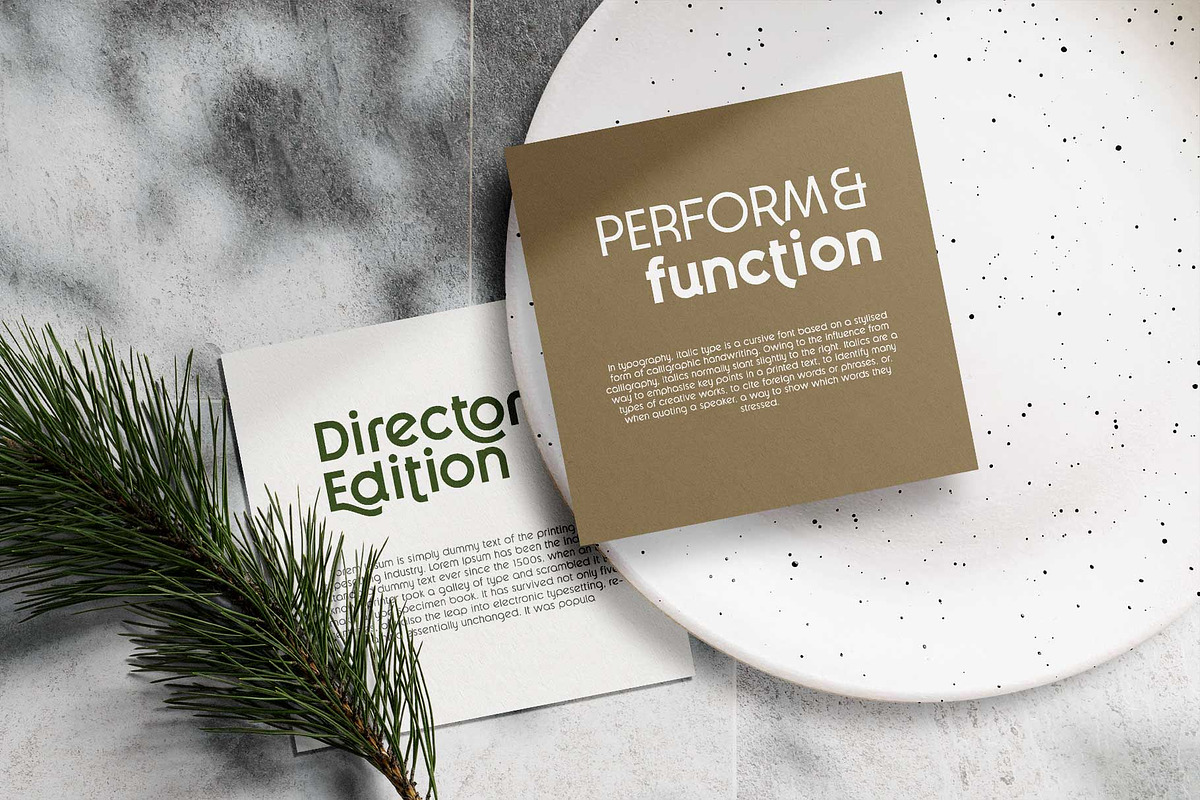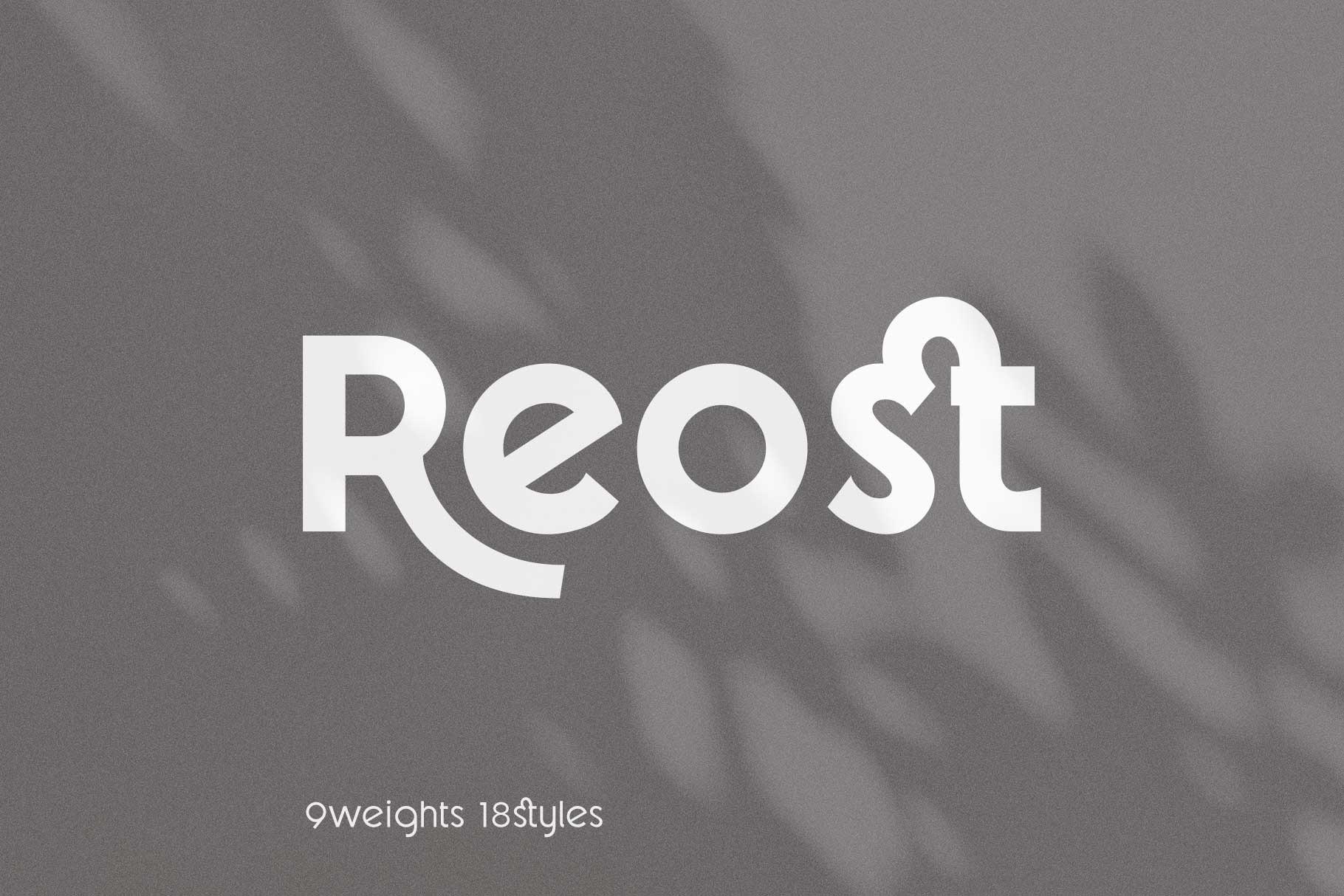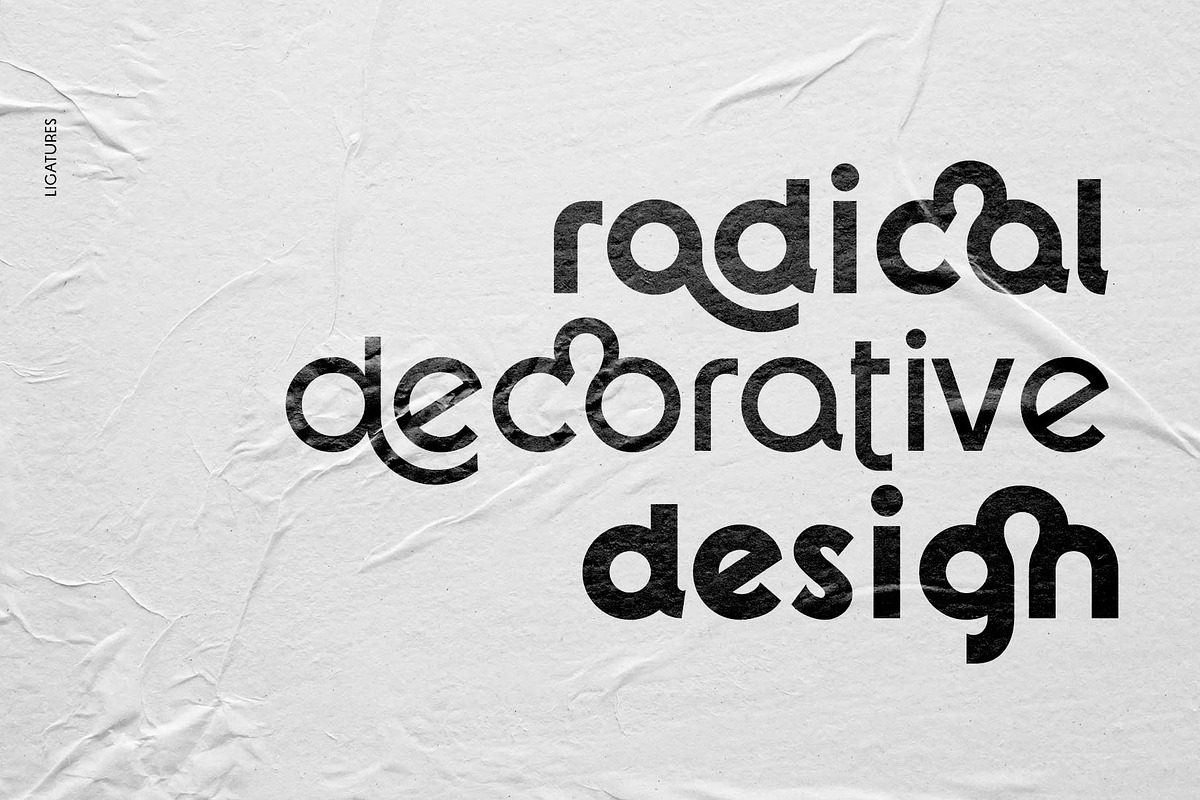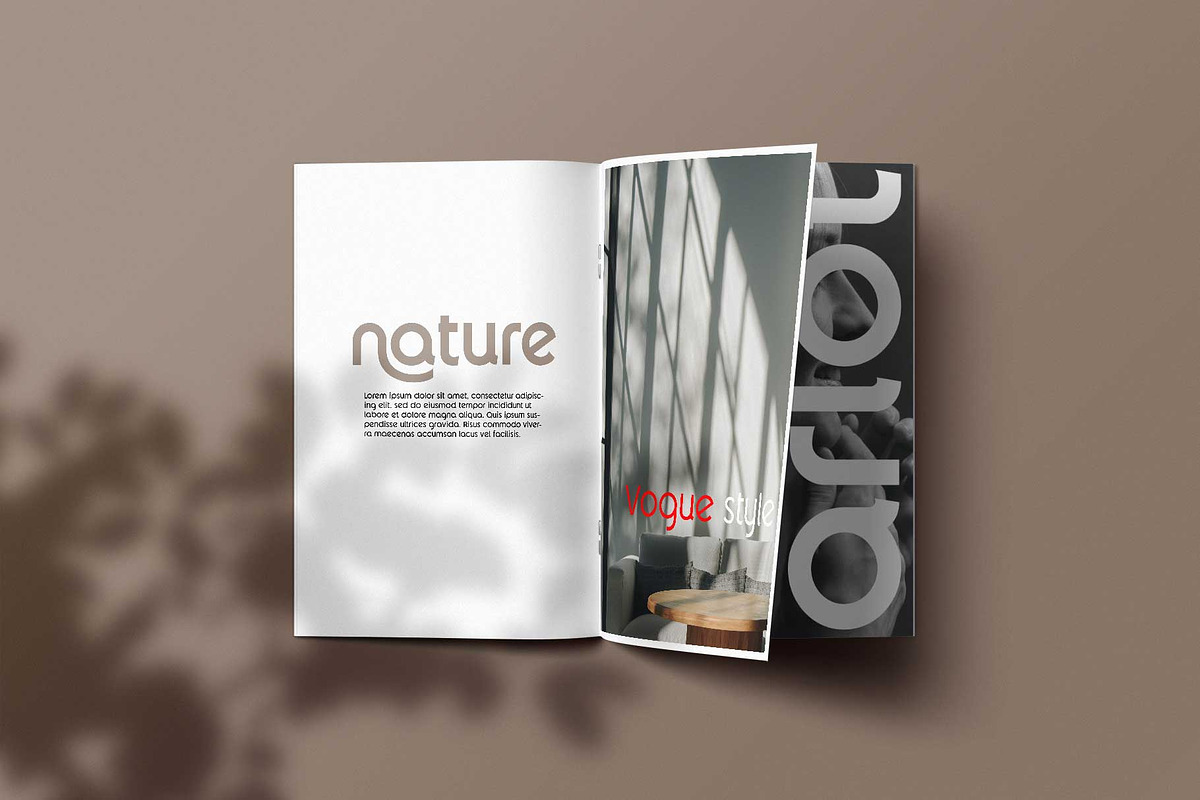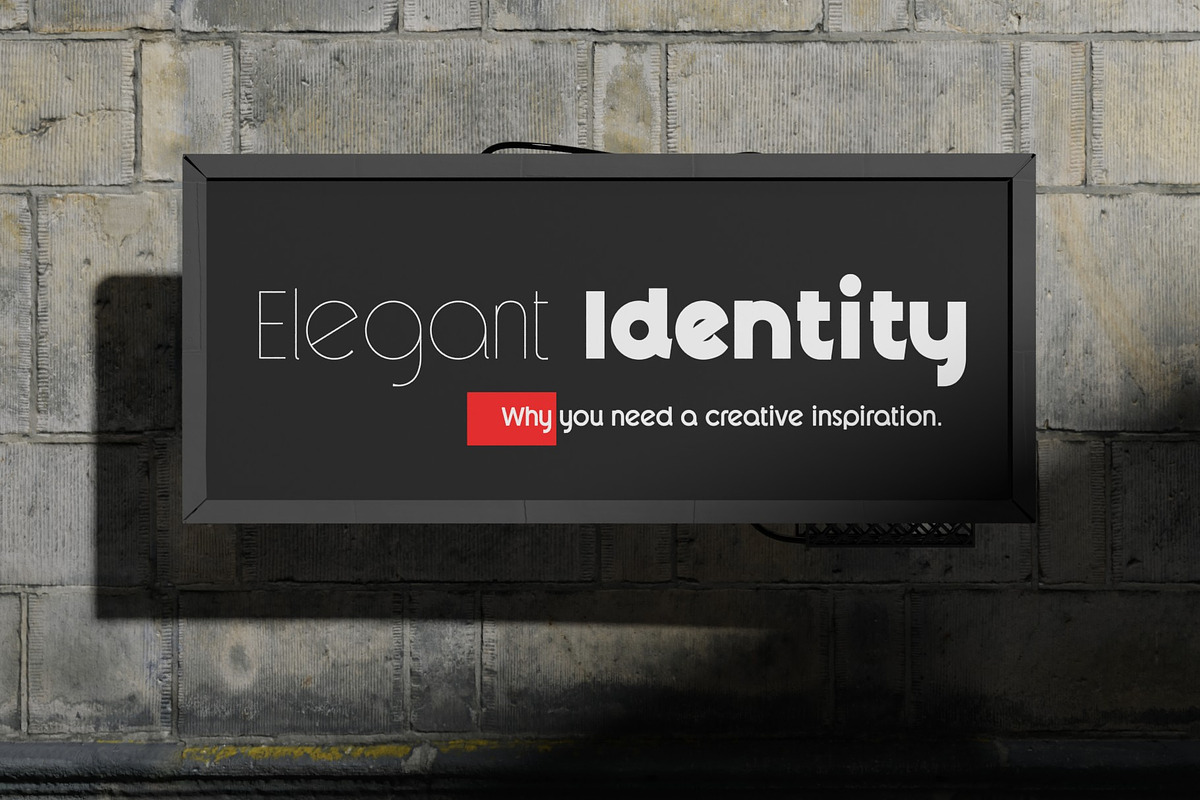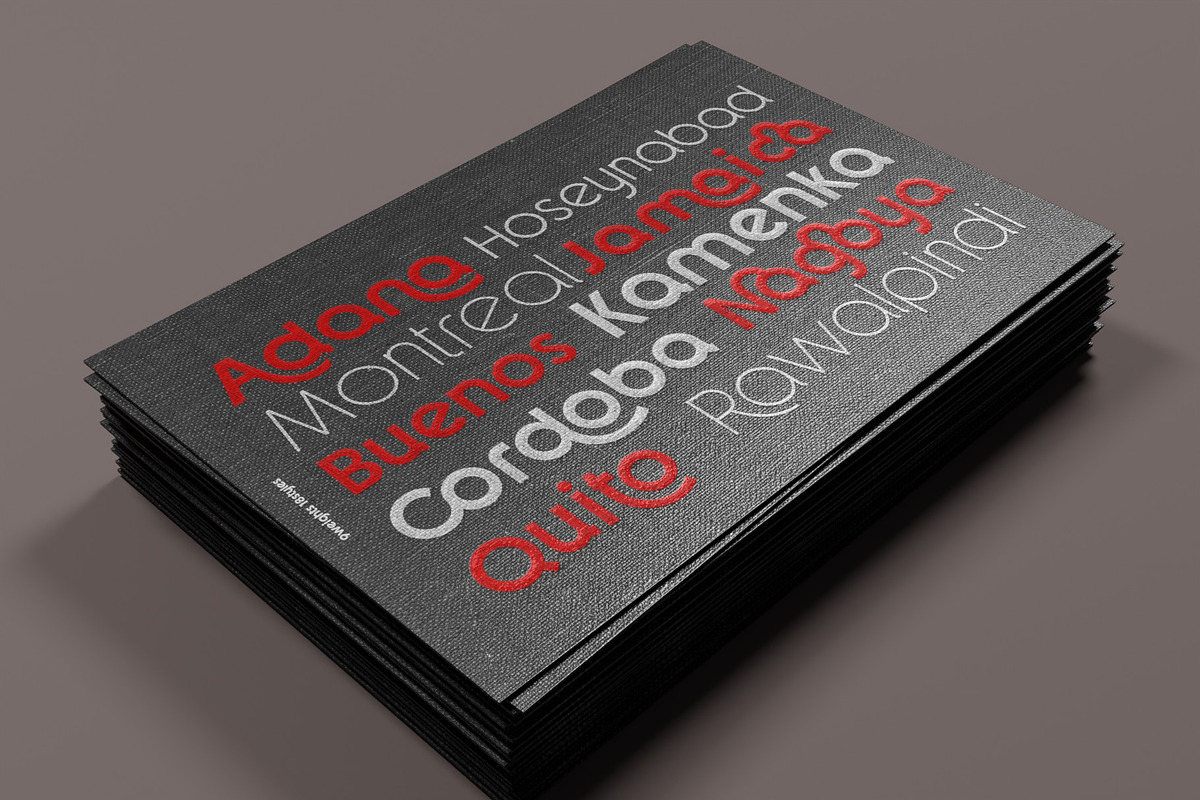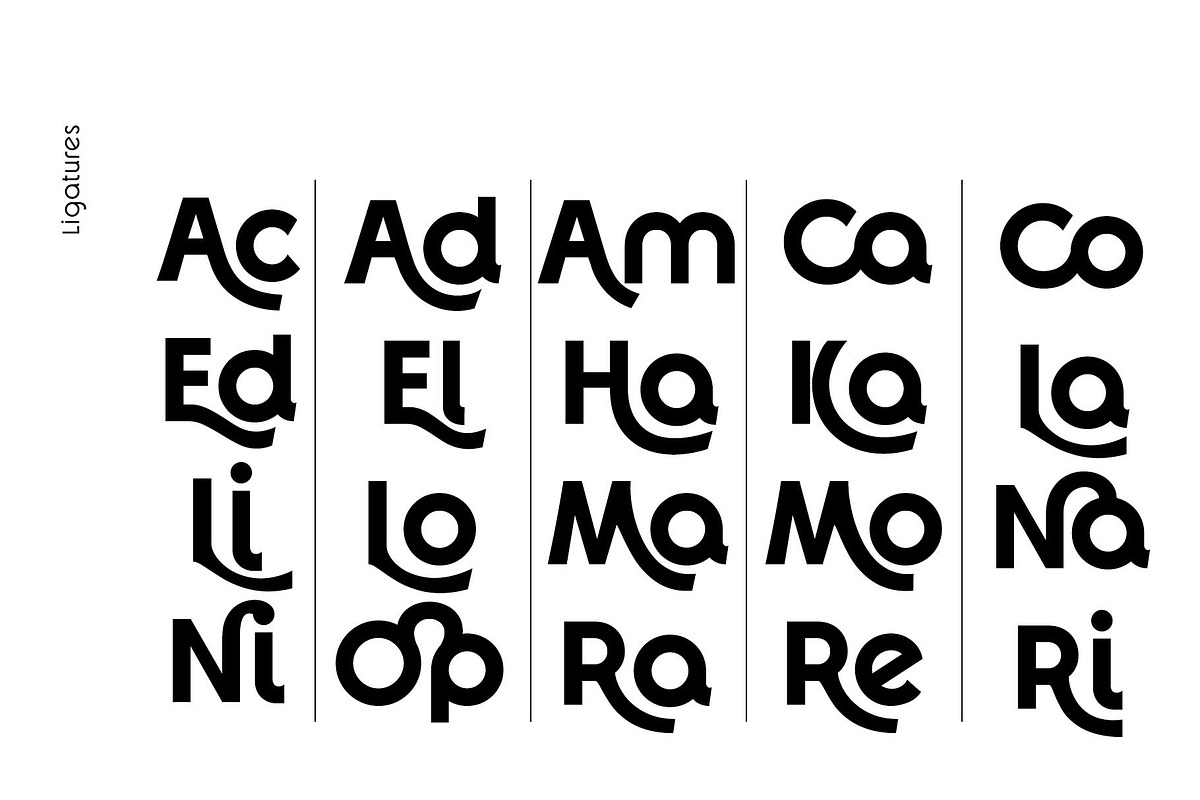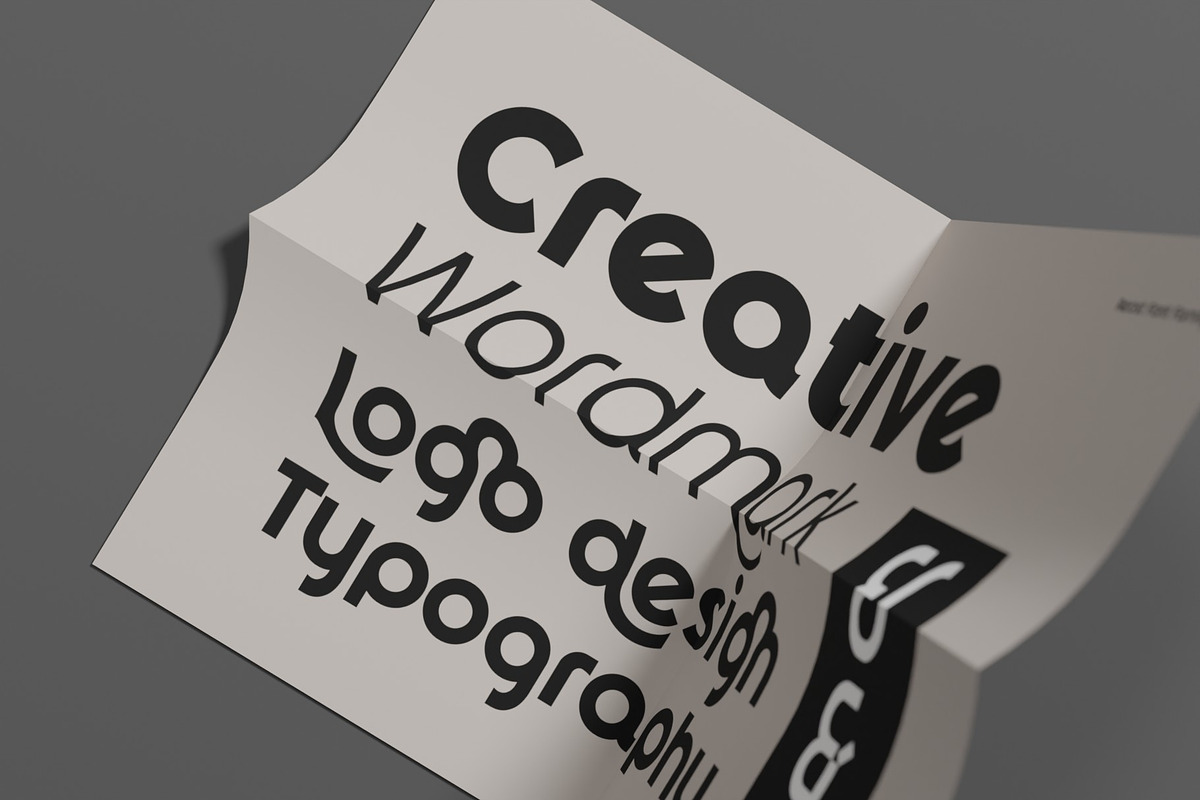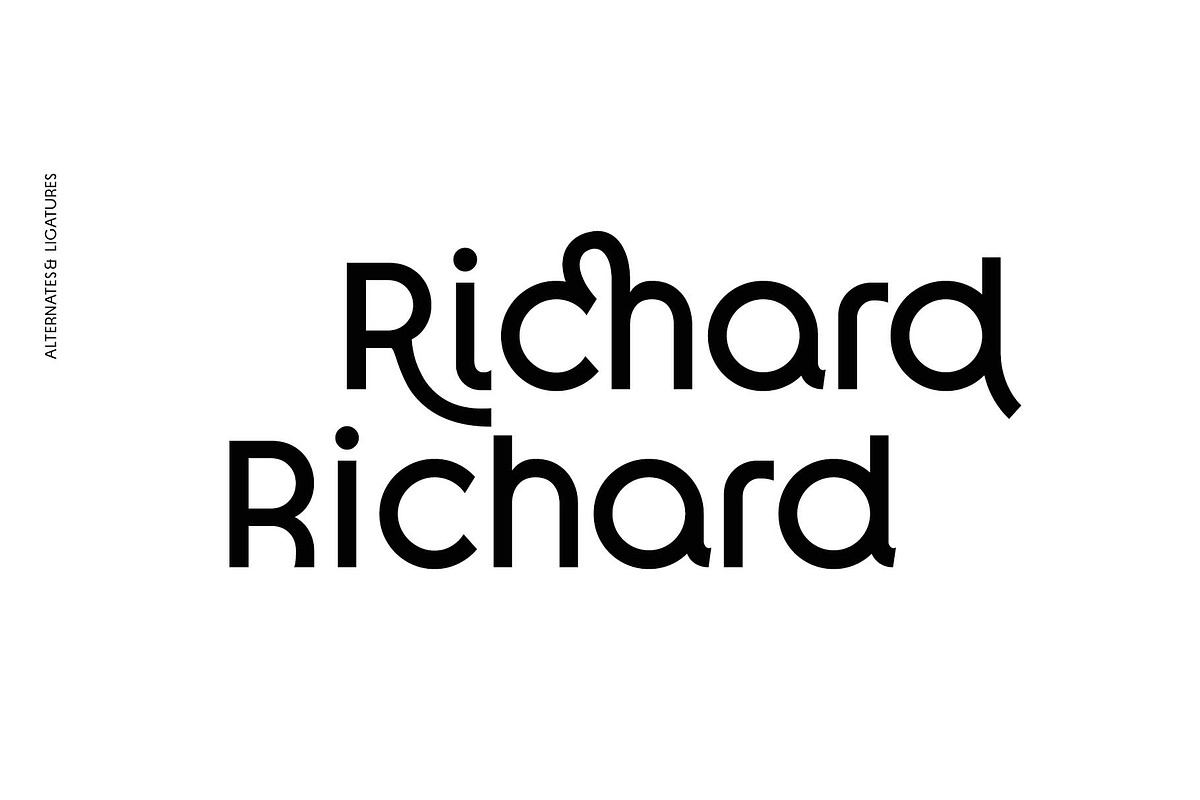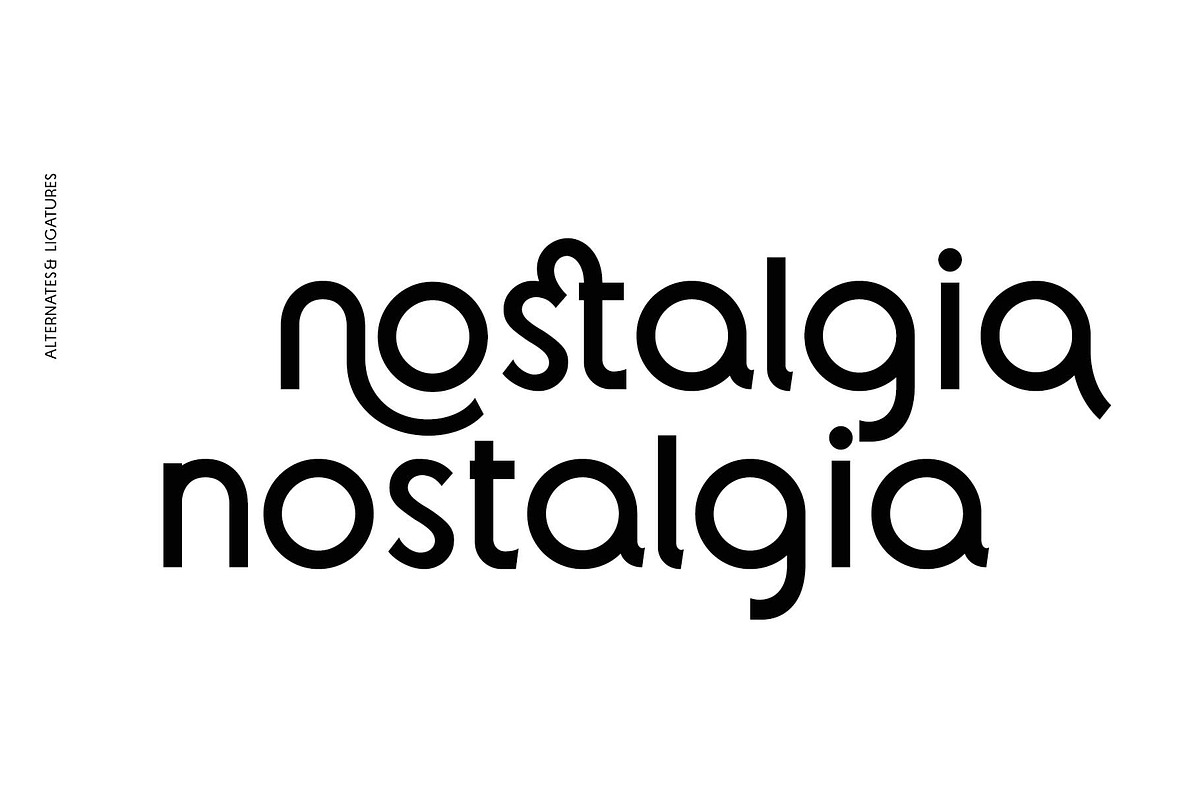
Reost - Stylish Modern Font Family
Reost - Stylish Modern Font Family Whatever your design needs, this font family is flexible enough to meet your inquiries. It is designed based on a geometric system so that it can fit well in any layout and different spaces, and care is taken to ensure that the interpolation deformation does not induce contrast distortion. Cute, but strictly on their own nature is the dominant keyword for this project. Your design work will be fun and enjoyable because elegant ligatures are ready. And creative Alternates are included.
OpenType Features
Alternates - A, D, E, H, K, L, M, N, Q, R, T, a, d, h, k, l, m, n, t, z
Ligatures - Ac, Ad, Am, Ca, Co, Ed, El, Ha, Ka, La, Li, Lo, Ma, Mo, Na, Ni, Op, Ra, Re, Ri, Ro, Ta, Te, Th, To, ad, ca, ch, ci, co, de, do, fa, fo, gn, go, li, lo. ma, me, mo, na, no, op, ro, sp, st, ta, te, ti, to, wo, zo.
Fractions